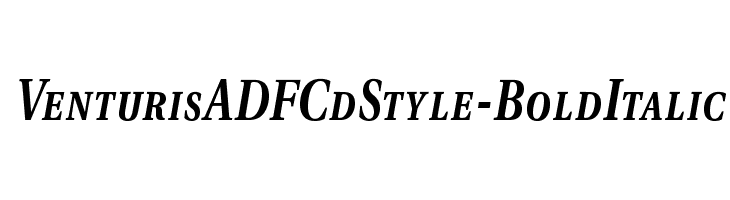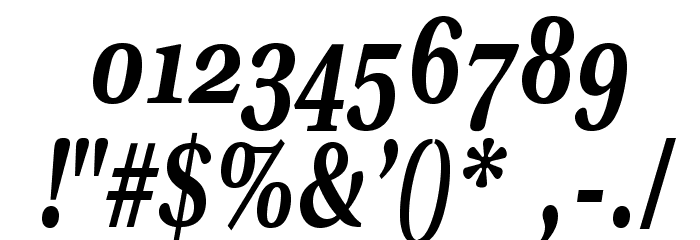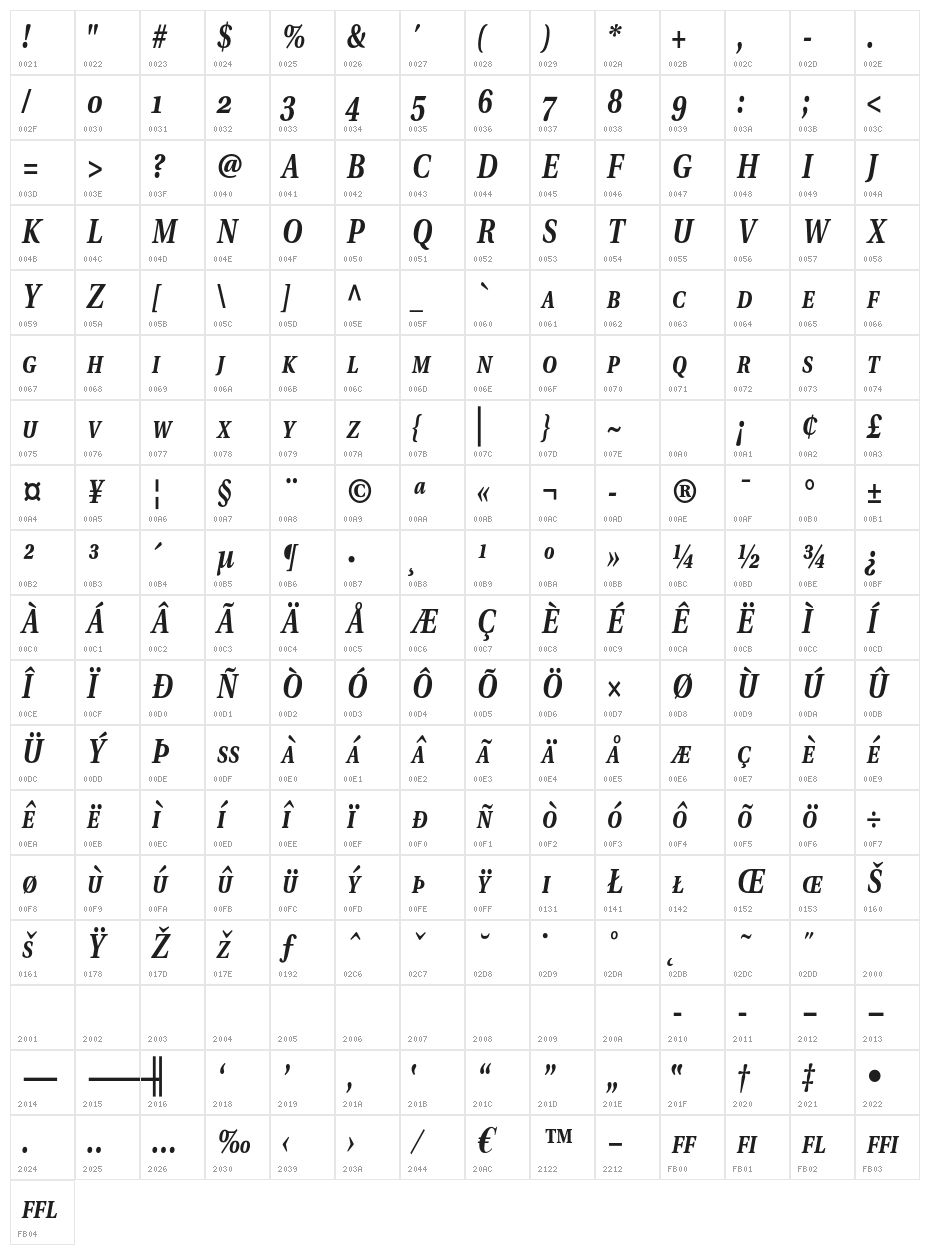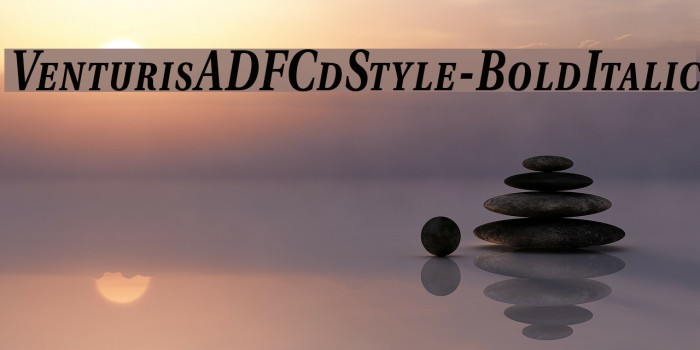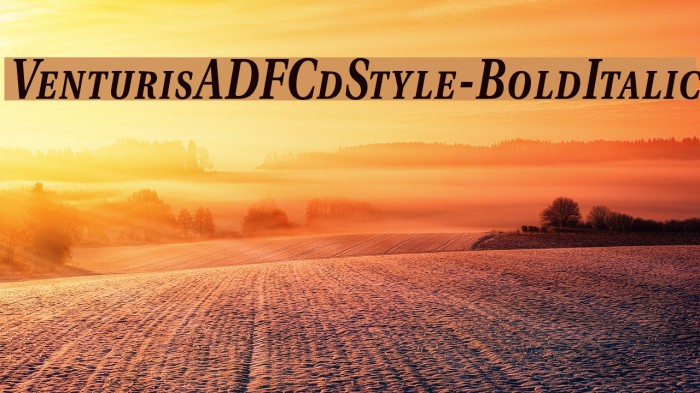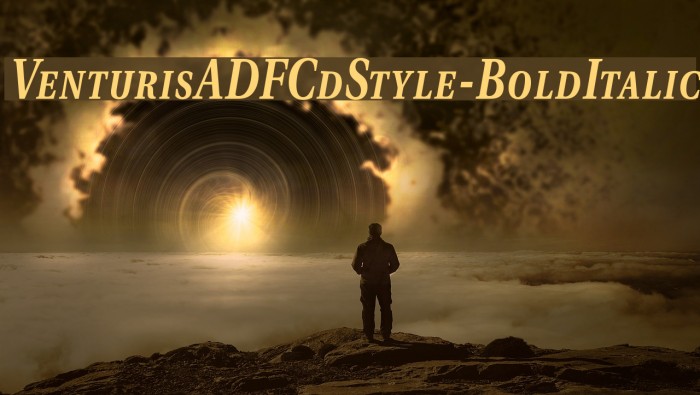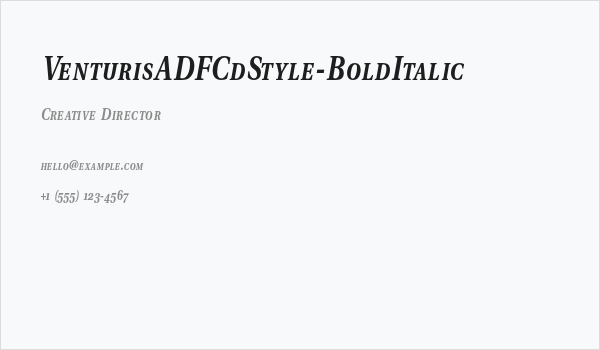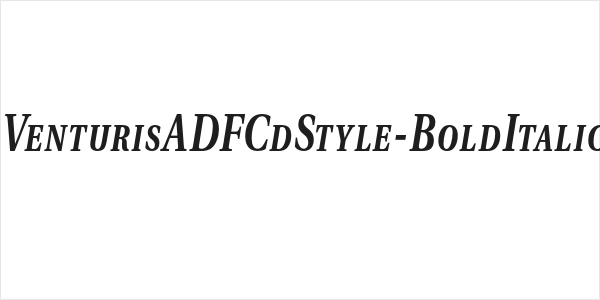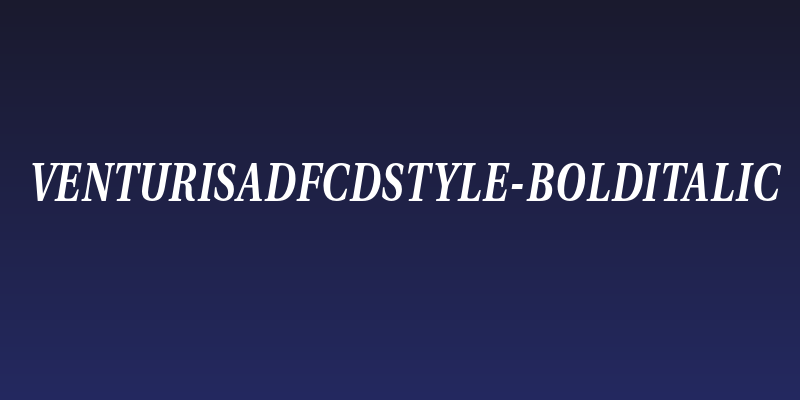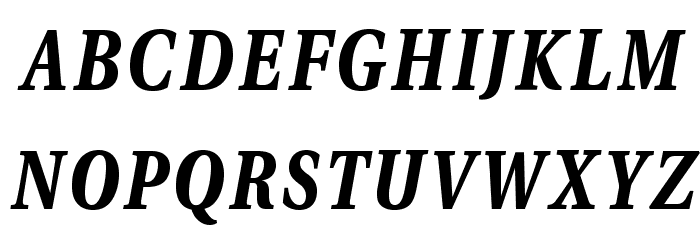
VenturisADFCdStyle-BoldItalic Font
VenturisADFCdStyle-BoldItalic Description
This font exhibits a bold and italic style, characterized by its strong and dynamic presence. The serifs are pronounced, adding a touch of elegance and tradition to the overall design. The italic slant gives it a sense of movement and sophistication, making it suitable for impactful and stylish text. The numerals are clear and distinct, while the special characters maintain the same bold and italicized flair, ensuring consistency across all elements. The font's structure is well-balanced, with a moderate contrast in stroke thickness that enhances readability without compromising on style.
| Use Case | Headlines, Logos, Editorial design |
| Proposed Projects | Ideal for branding, editorial design, book covers, and elegant invitations. |